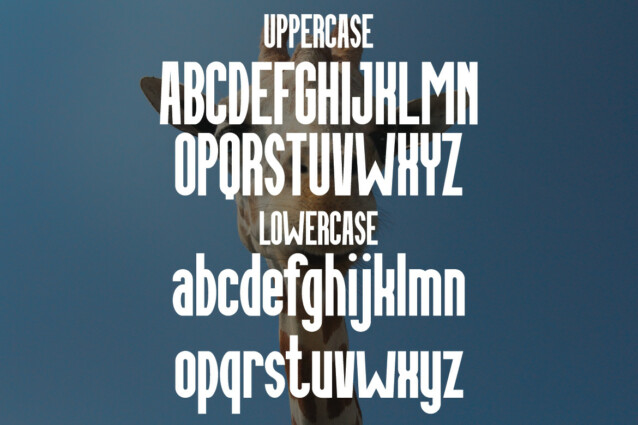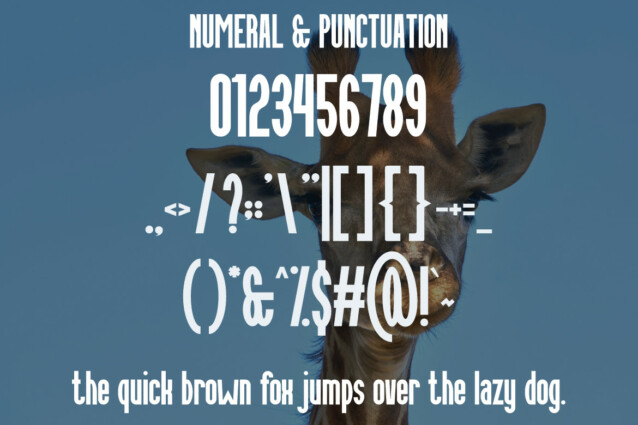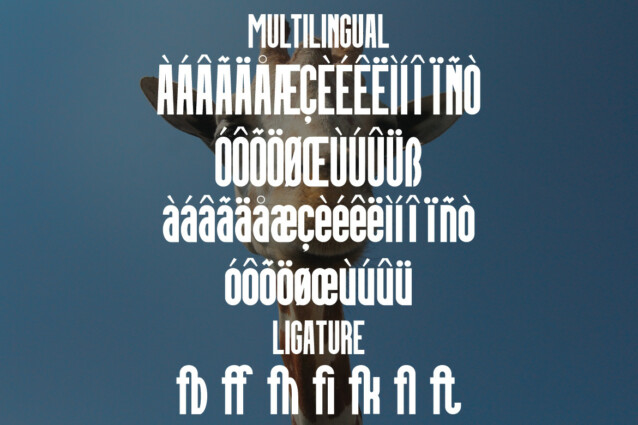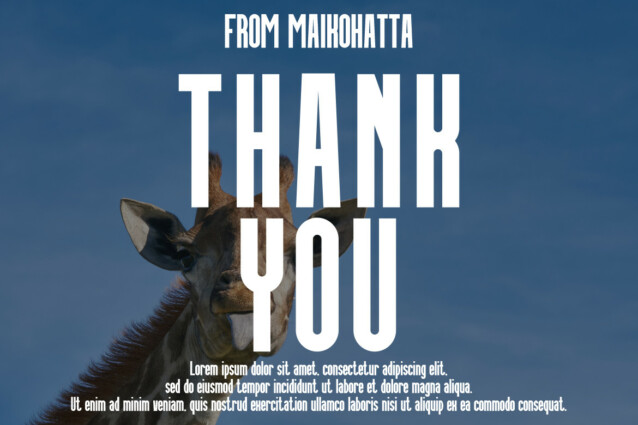
Girafl Font
Girafl Font – The font is a typeface characterized by consistent line thickness and a higher vertical line-width ratio compared to regular sans-serif fonts. Its primary feature is a compact and condensed typographic style. This font is well-suited for use in graphic design, branding, advertising, and various other design projects where space efficiency and a clean, modern appearance are a priority.
* Uppercase
* Lowercase
* Multilingual
* Ligature